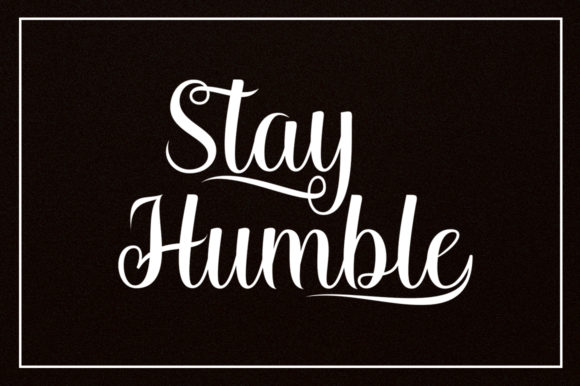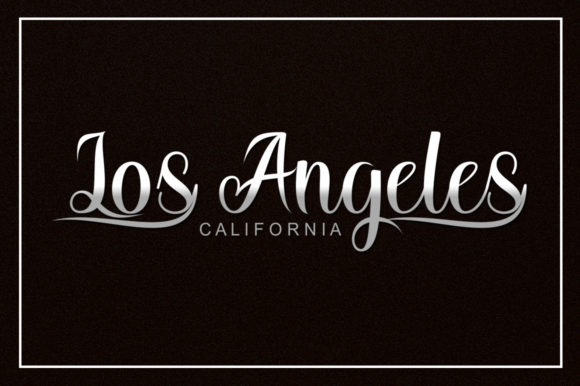
Stayland Font
db-ku.com - Script & Handwritten -- The Stayland is a modern script typeface. It has a striking, yet elegant look which can be used to make your design stand out.